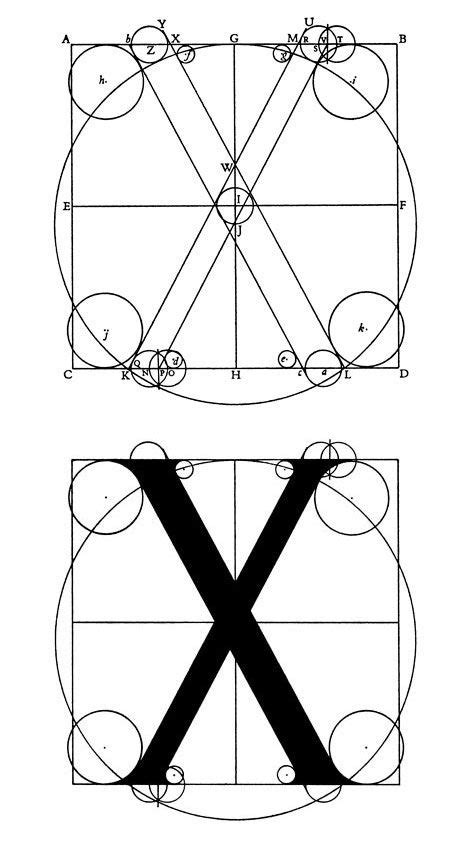
100+ X Fonts Copy & Paste: Download Free Fonts Now
Readers, have you ever wished you could easily add a unique touch to your designs or documents without the hassle of downloading and installing new fonts? We all know the struggles of finding the perfect font, especially when you need a specific style or unique character. Luckily, there are plenty of free X fonts available online, ready to be copied and pasted directly into your projects. This article delves into the fascinating world of free X fonts and how you can seamlessly incorporate them into your digital creations.
Imagine having a vast library of fonts at your fingertips, ready to be used instantly. No more hunting through endless font websites, downloading and installing them. This is the power of copy and paste fonts! We'll uncover the secrets of finding the best free X fonts online, explore their diverse applications, and provide you with practical tips for using them effectively.
Why Use Free X Fonts?
Free X fonts offer a multitude of advantages for designers, writers, and anyone looking to enhance their digital content. Their accessibility and ease of use make them a popular choice for a wide range of projects. Let's delve into the reasons why free X fonts are such a valuable resource.
Accessibility and Affordability
Variety and Uniqueness
The beauty of free X fonts lies in their sheer diversity. You'll find everything from classic serif and sans-serif fonts to playful scripts, bold display fonts, and even specialized fonts designed for specific purposes. This variety allows you to find the perfect font to match your project's mood, style, and message.
Ease of Use
How to Copy and Paste Fonts
Copying and pasting fonts is a simple process that can be done in a few steps. This method is especially handy for quick font changes or when you want to try out a new font without installing it.
1. Find the Font
Start by finding the desired free X font from one of the sources mentioned earlier. Look for the "Copy" or "Copy to Clipboard" button next to the font name.
2. Copy the Font
Click on the "Copy" button to copy the font code to your clipboard.
3. Paste the Font
Open the document or design platform where you want to use the font. Go to the font selection menu, select the "Paste" option, and the copied font will be applied.
Types of Free X Fonts
The world of free X fonts is incredibly diverse, offering a range of styles and applications. Explore these popular types of free X fonts to find the perfect match for your projects.
Serif Fonts
Serif fonts are characterized by small decorative strokes at the ends of their letterforms. They're known for their elegance and readability, often used in traditional designs, books, and articles.
Sans-serif Fonts
Sans-serif fonts lack the decorative strokes found in serif fonts. They're generally considered clean and modern, often used in websites, branding, and digital interfaces.